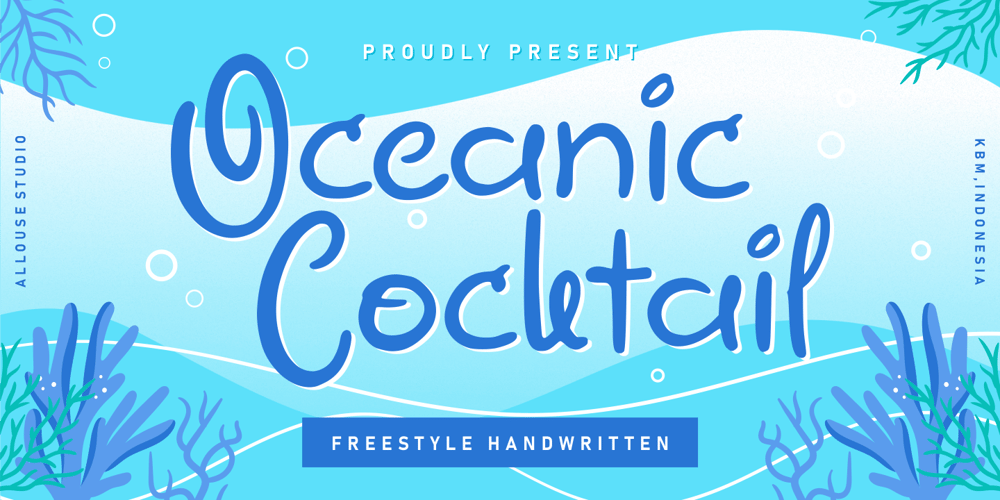
Oceanic Cocktail Font Family was designed by Fachrizal Yusuf and published by Allouse Studio. Oceanic Cocktail contains 1 styles and family package options. Proudly Presenting, Oceanic Cocktail a Freestyle Handwritten Font.Oceanic Cocktail is perfect for any titles, logo, product packaging, branding project, megazine, social media, wedding, or just used to express words above the background.Oceanic Cocktail also come with Multi-Lingual Support.Enjoy the font, feel free to comment or feedback, send me PM or email. Thank You!